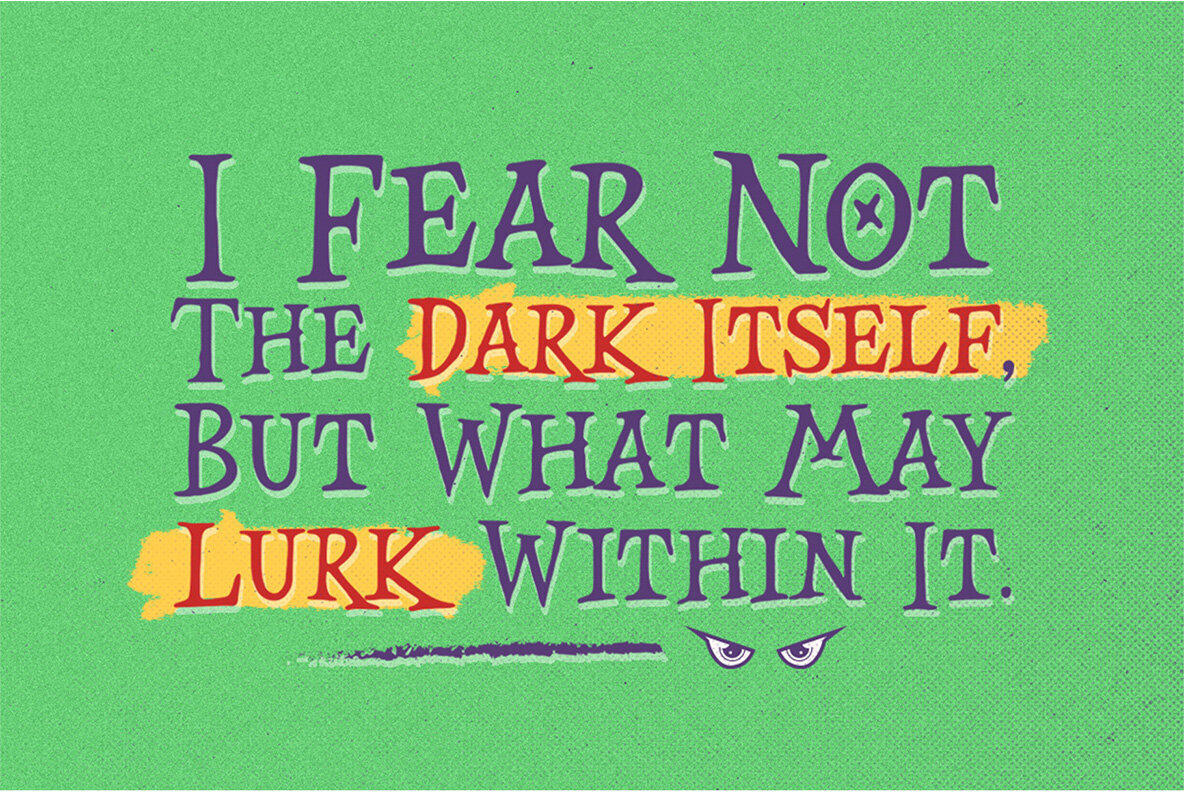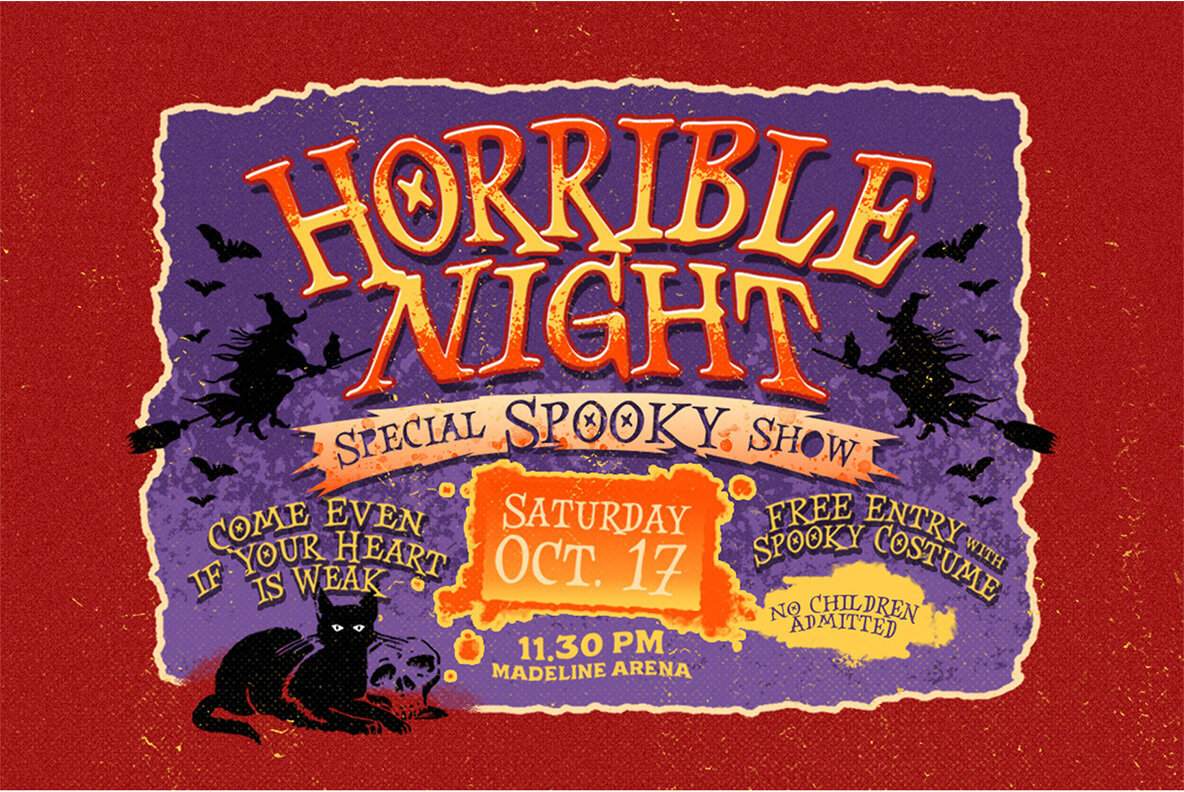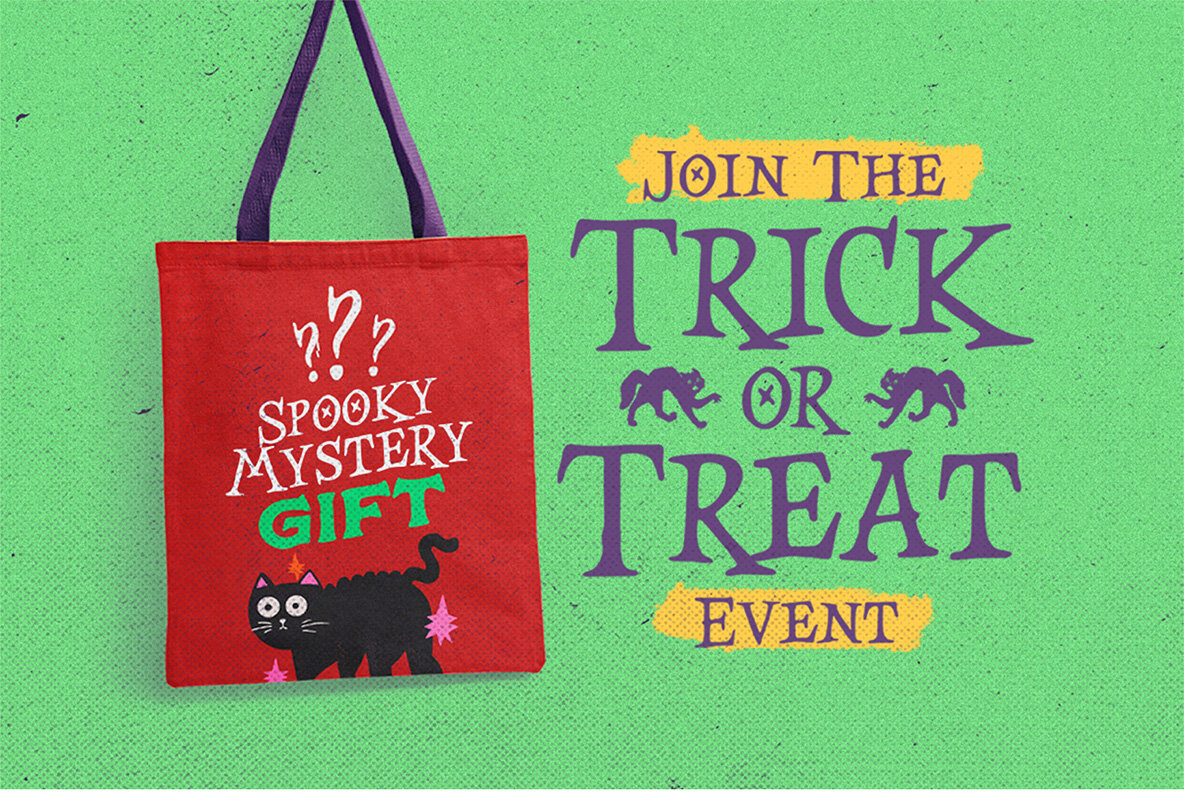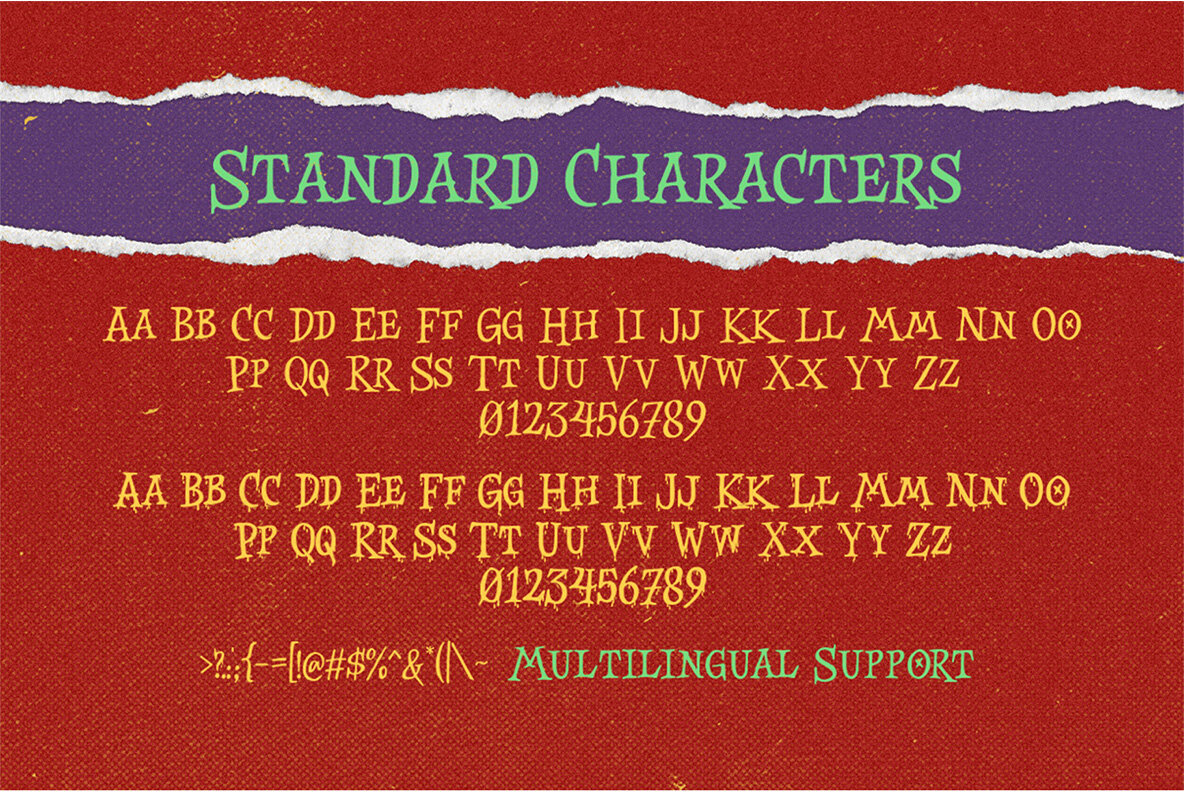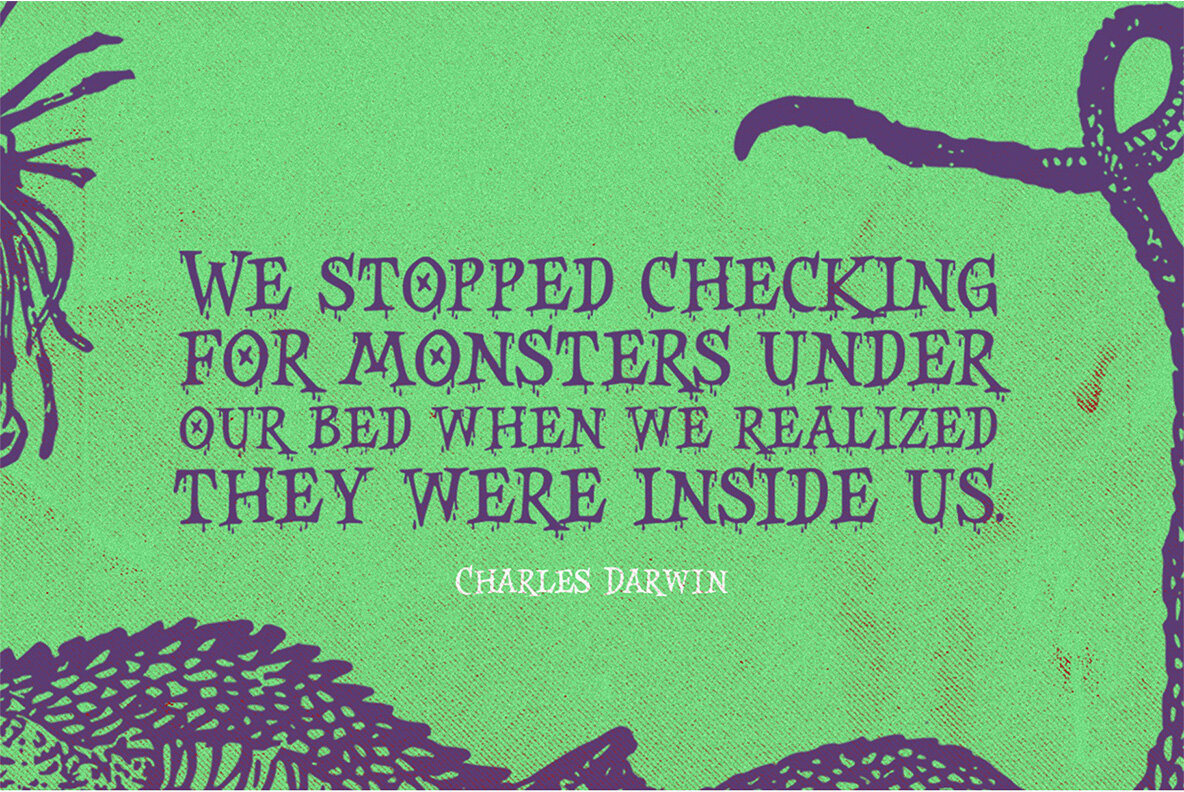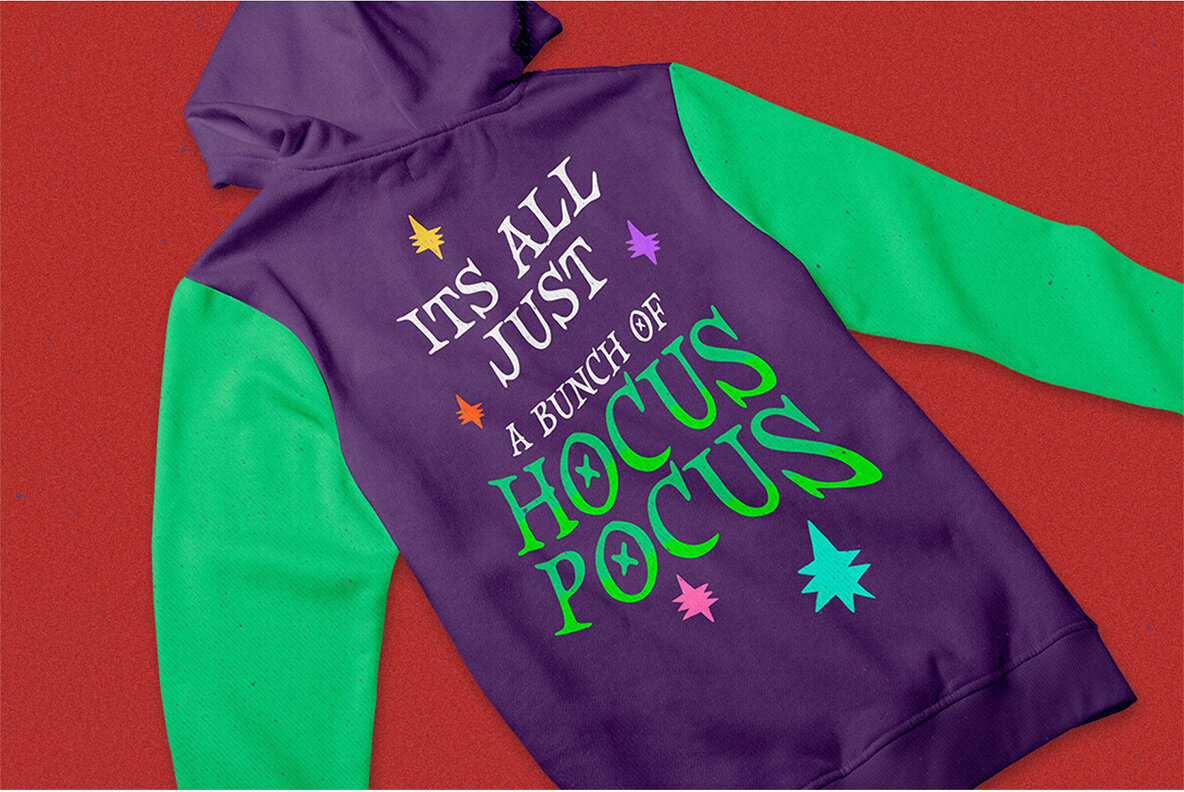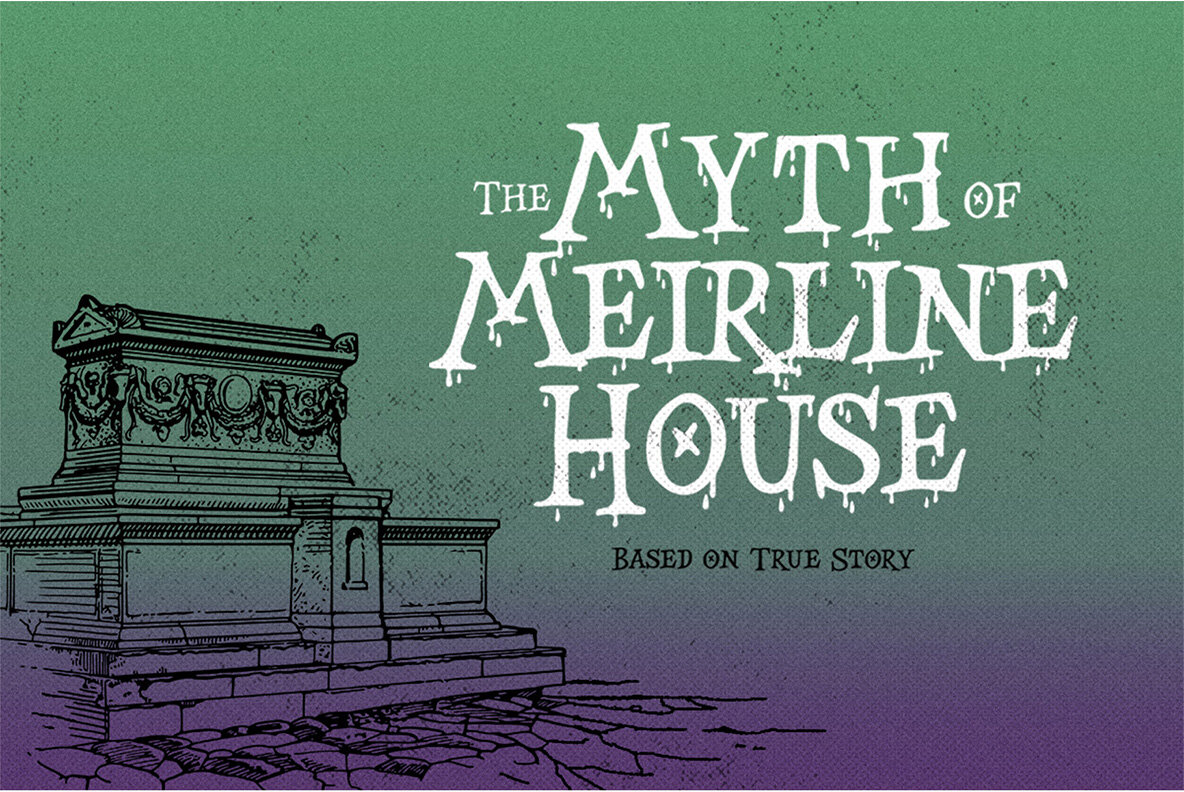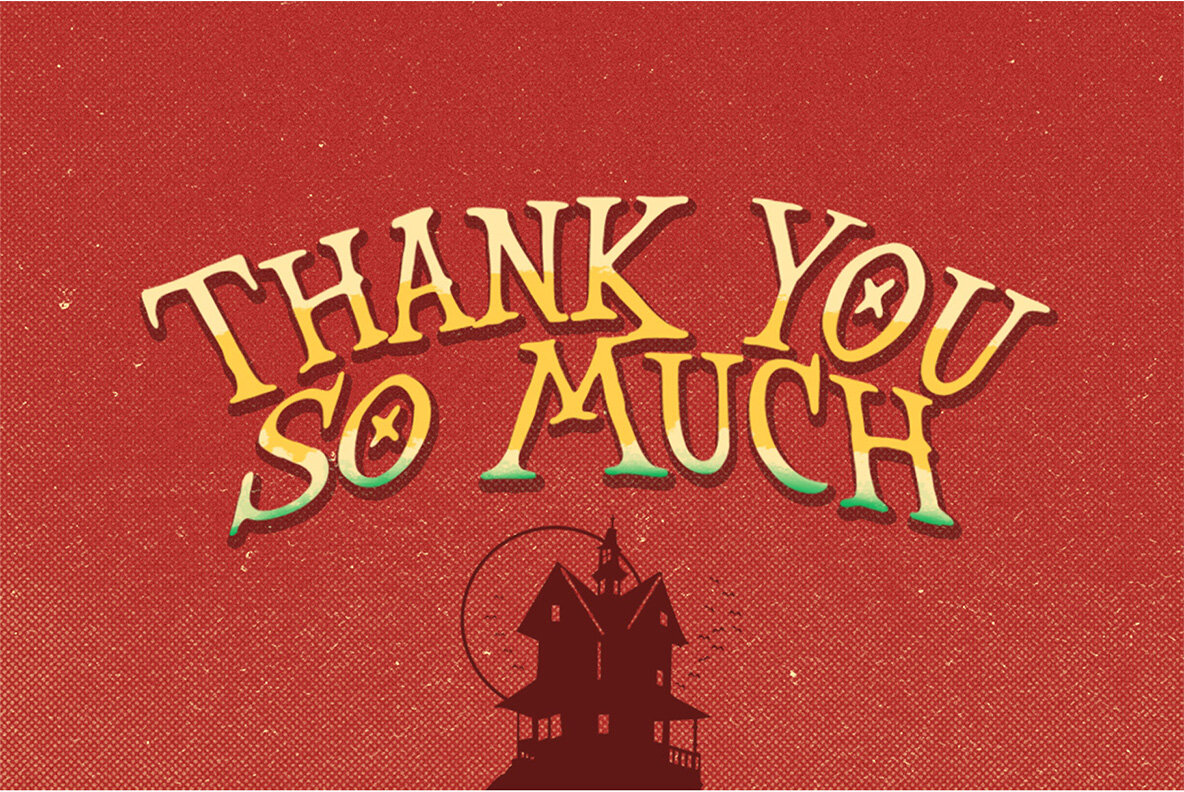
The Pinesicle Stock Font
Embrace a unique blend of horror and whimsy with Pinesicle Stock, a distinctive display typeface crafted for thrill-seekers and designers alike. Perfect for horror, thriller, and spooky-themed projects, this font marries an eerie aesthetic with a playful twist. Both 'regular' and 'bloody' styles add a charmingly ghoulish element suitable for logos, invitations, and promotional material. Features: For optimal creative expression, we suggest using software that supports OpenType features and Glyphs panels, such as Adobe applications and Corel Draw. This allows full exploration of its extensive Glyph variations.Pinesicle Stock: Playful Horror Display Typeface